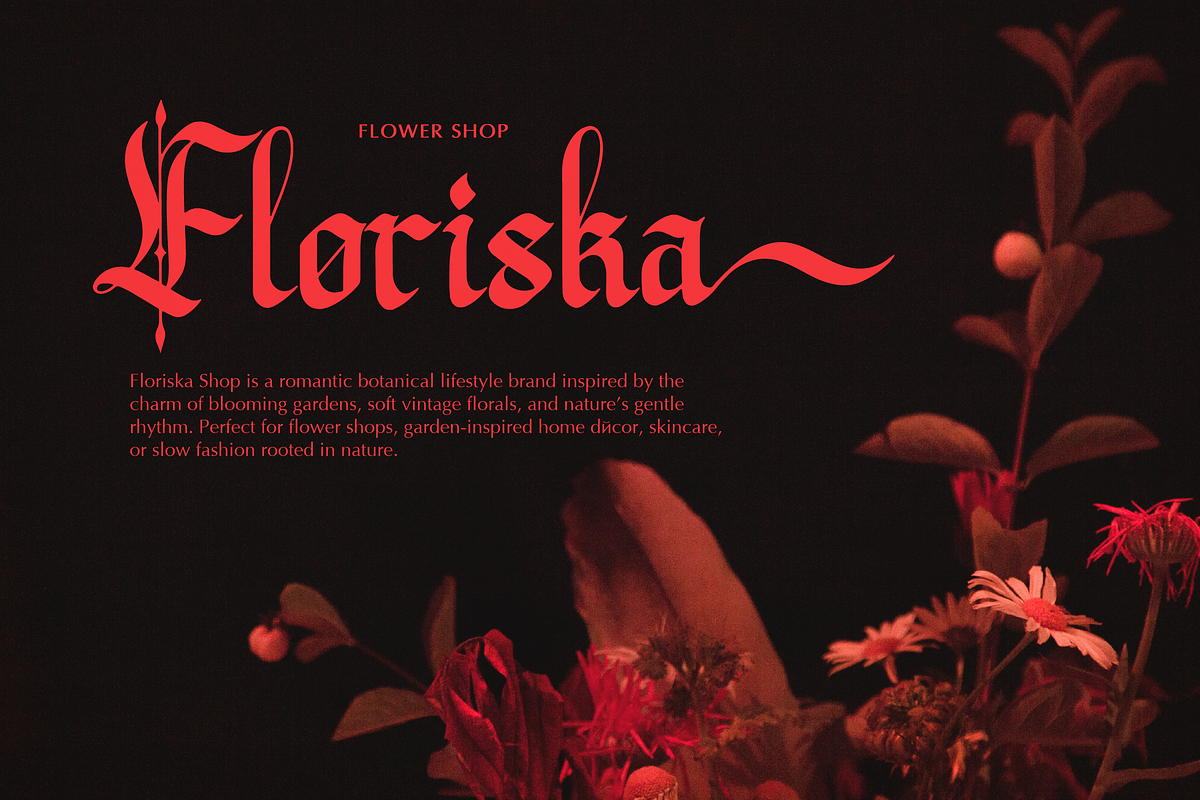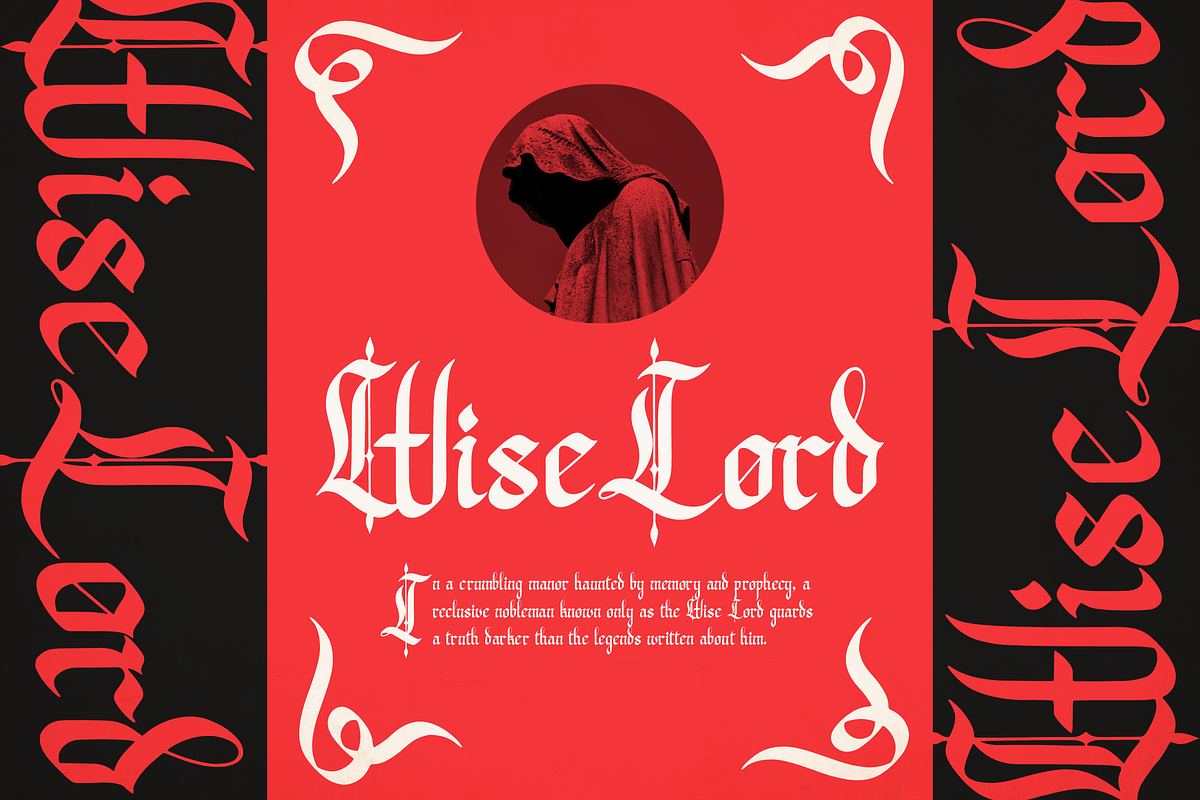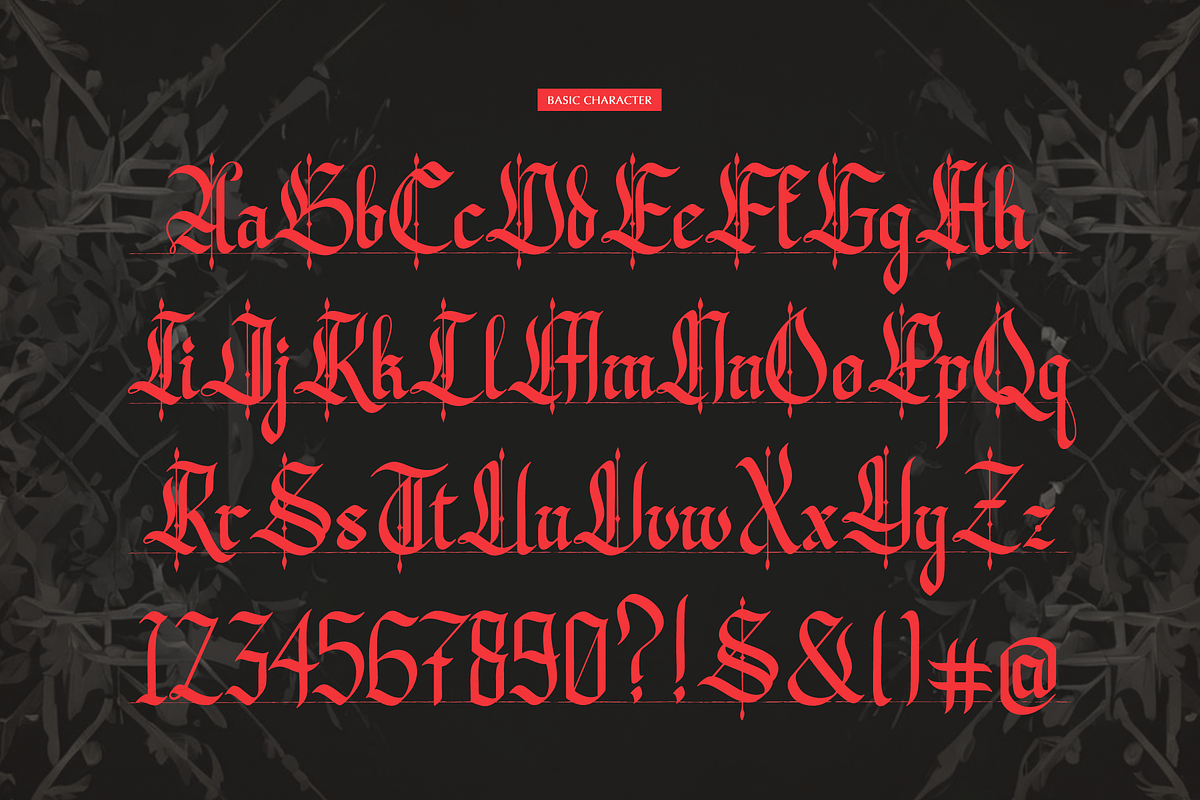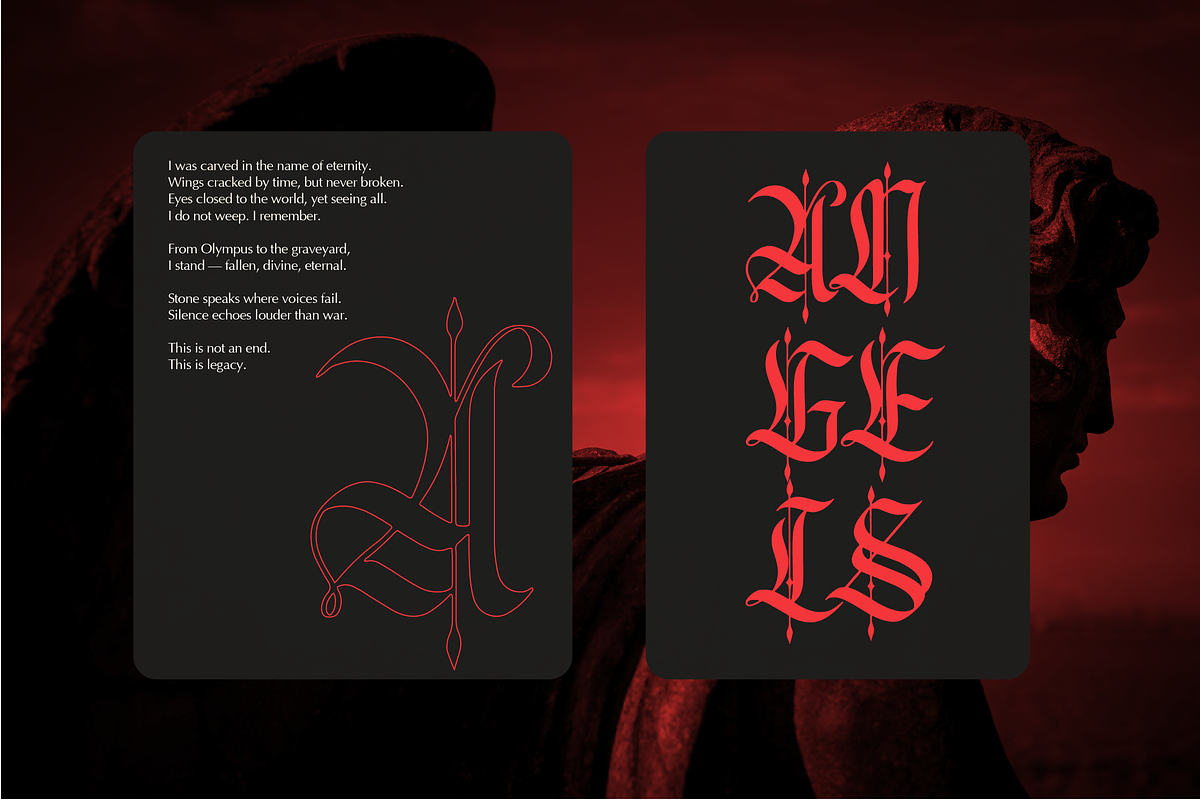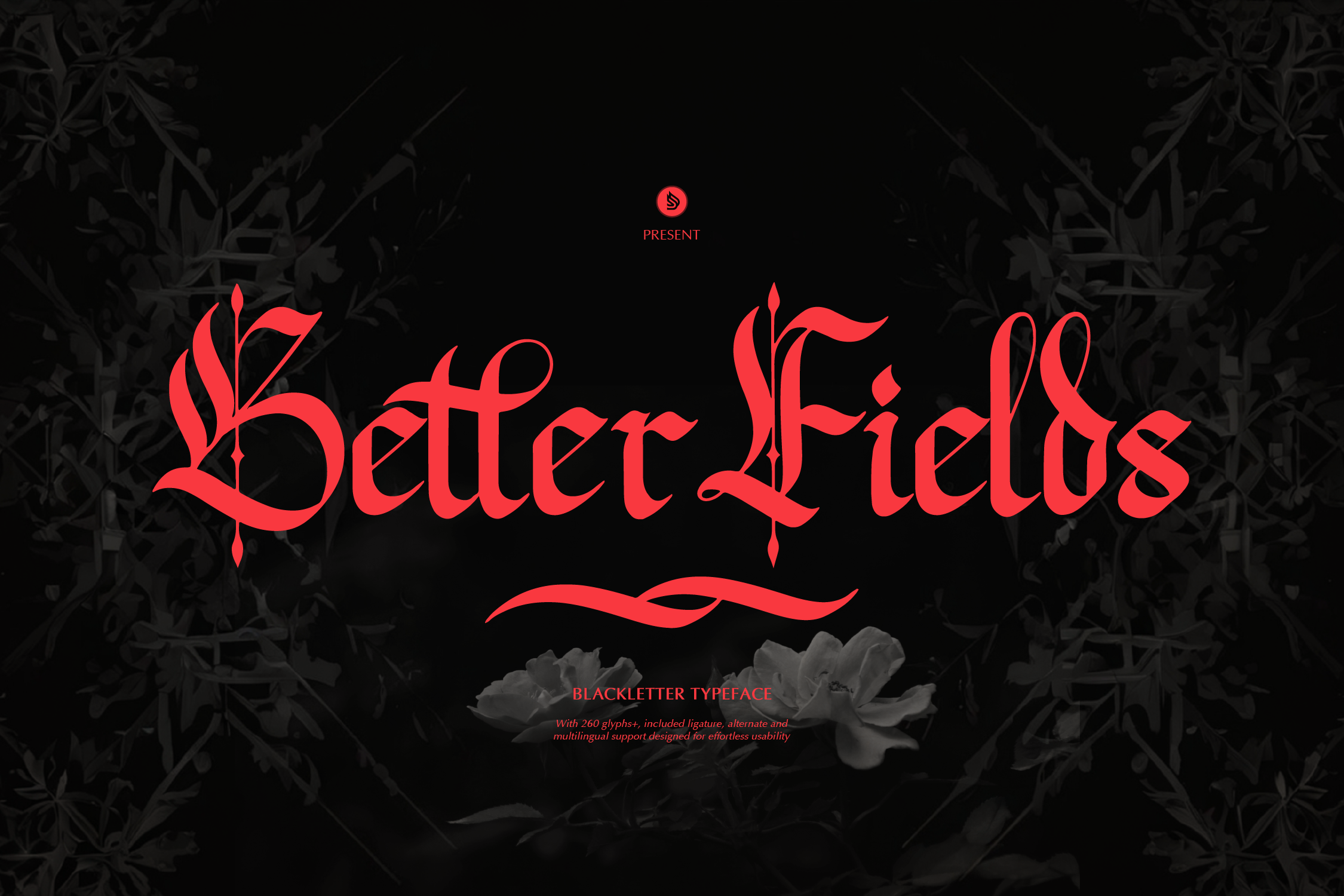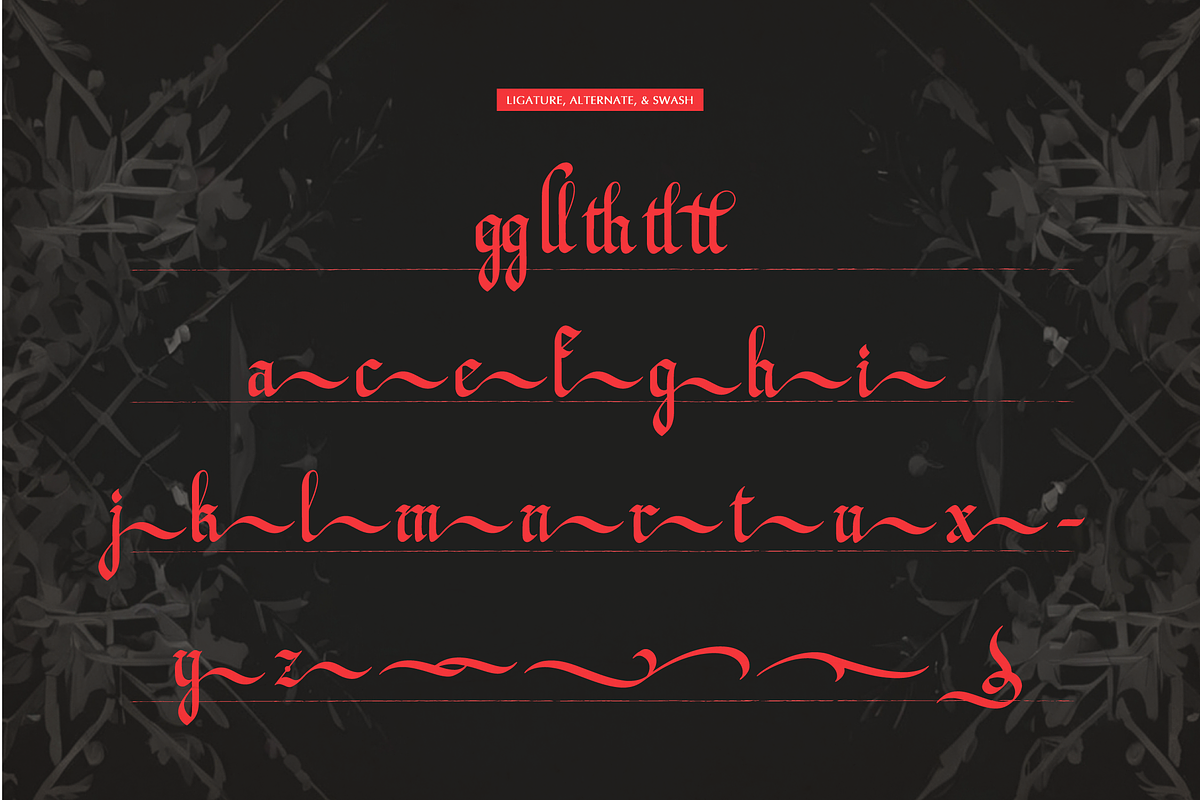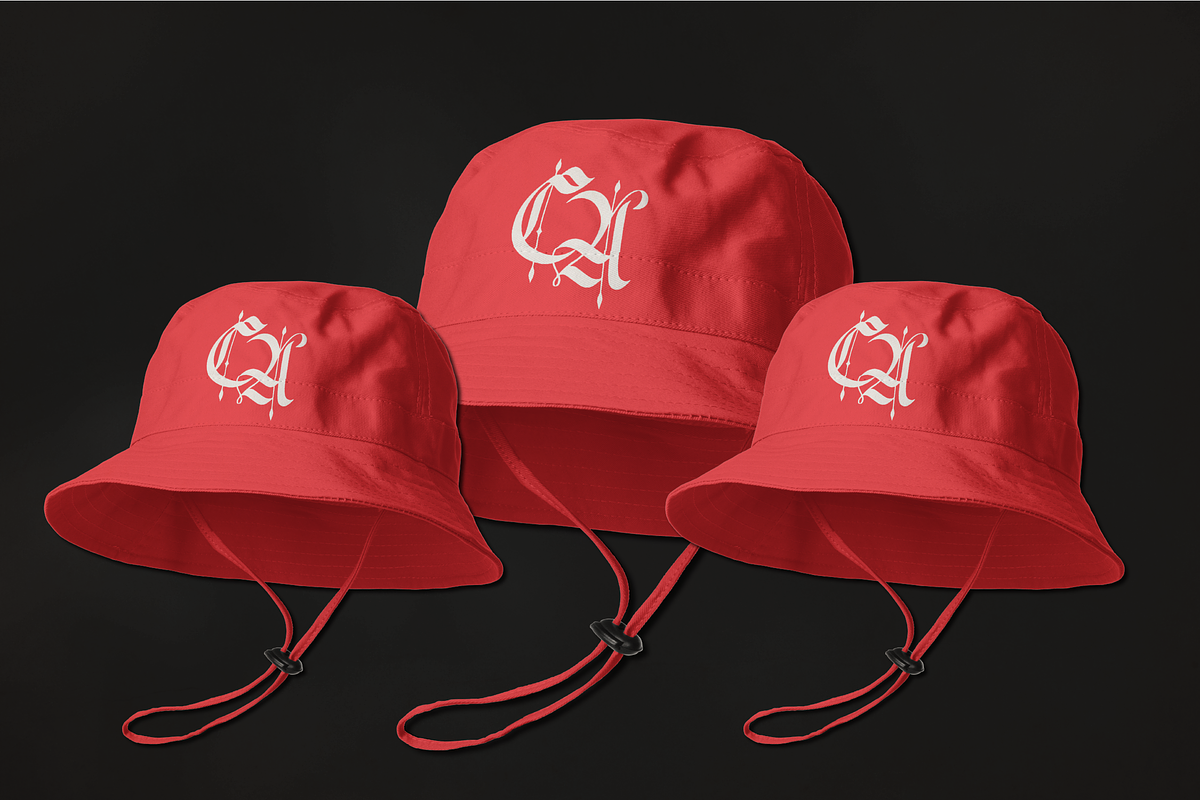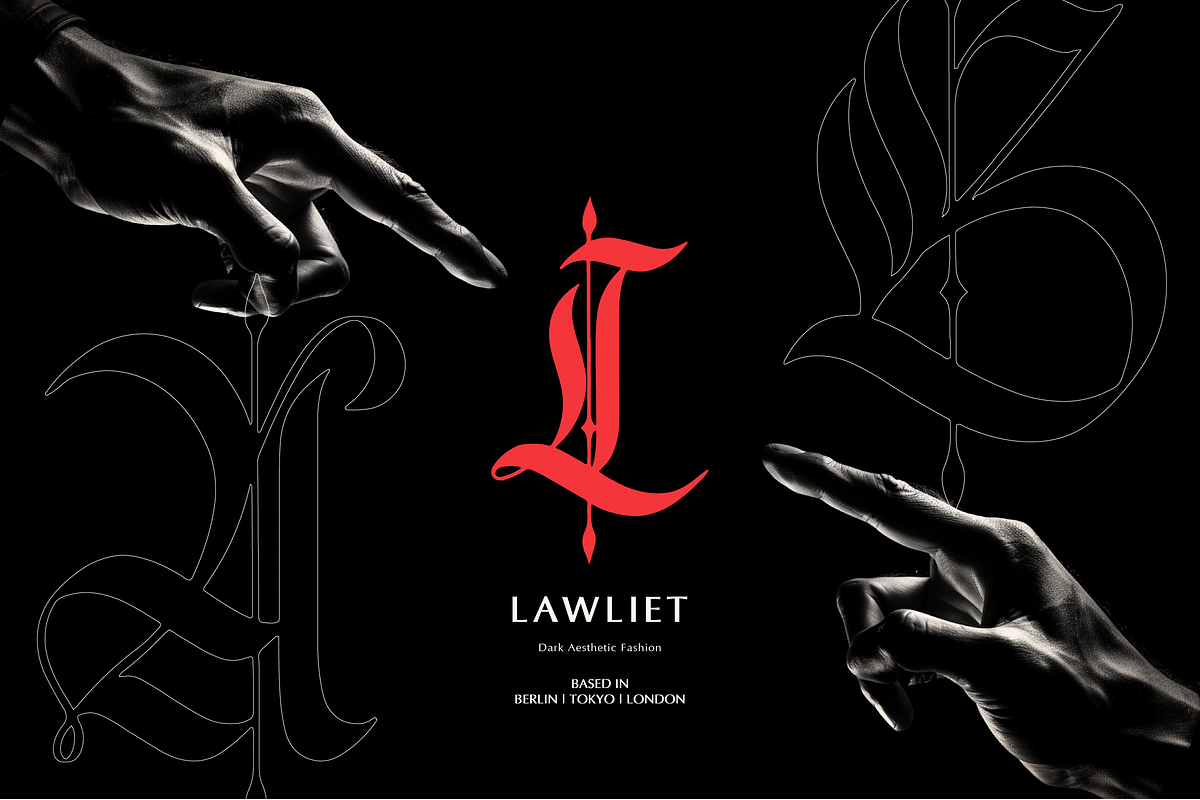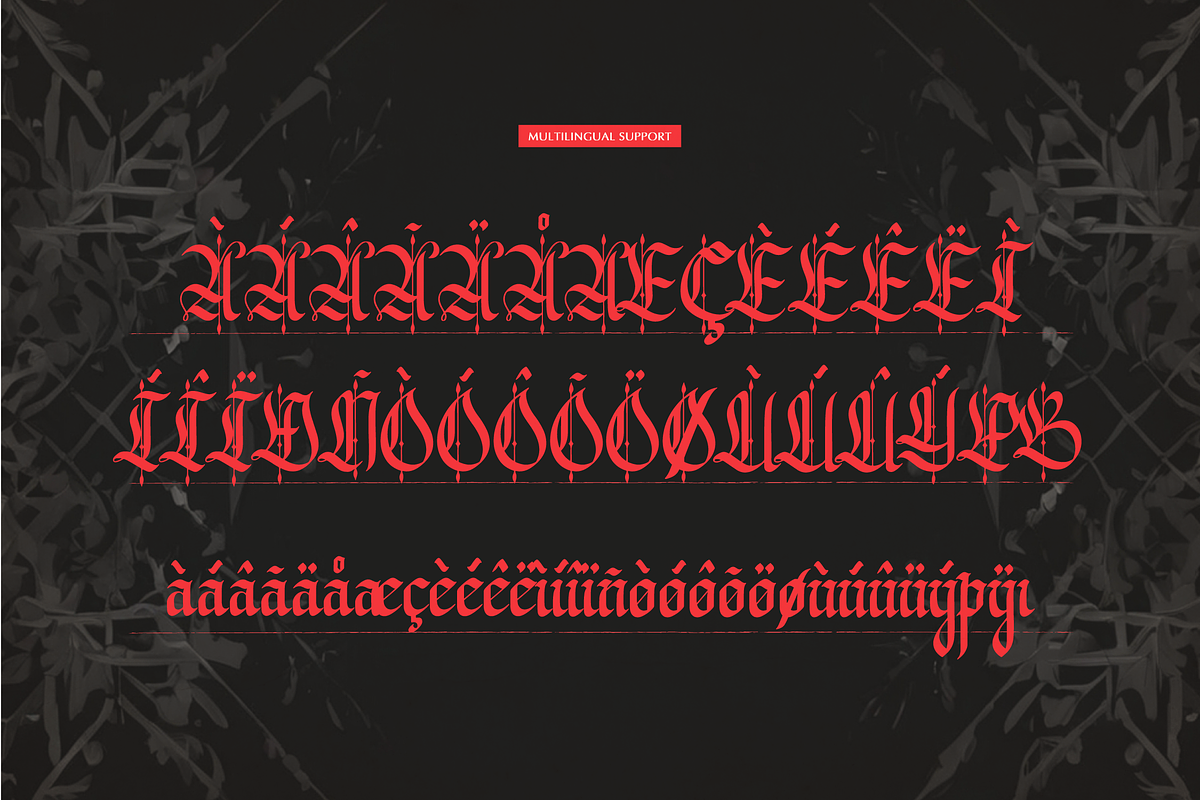
Better Fields | Blackletter Typeface
Better Fields | Blackletter Typeface, from Denustudios, suitable for any projects such as: logos, branding projects, homeware designs, product packaging, mugs, quotes, posters, shopping bags, t-shirts, book covers, name card, invitation cards, greeting cards, label, photography, watermark, special events, and all your other lovely projects that need a Blackletter Typeface taste.